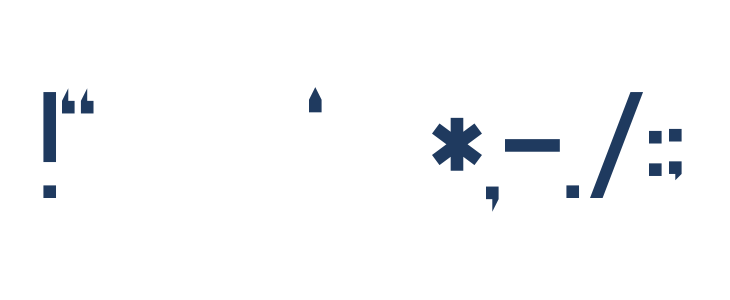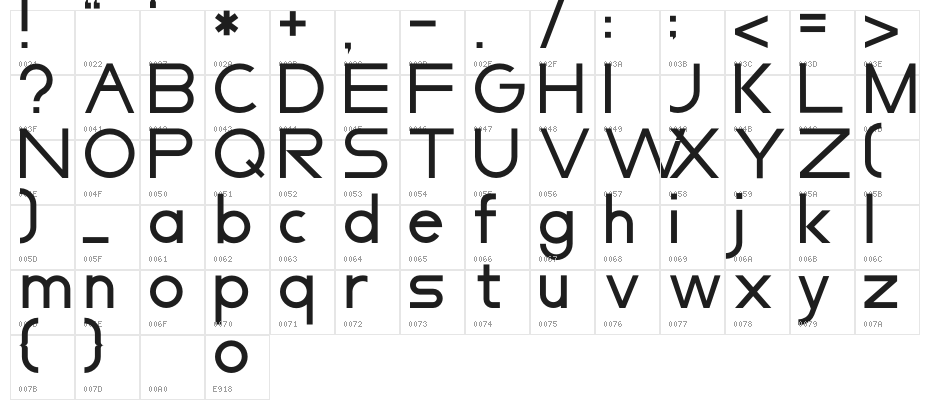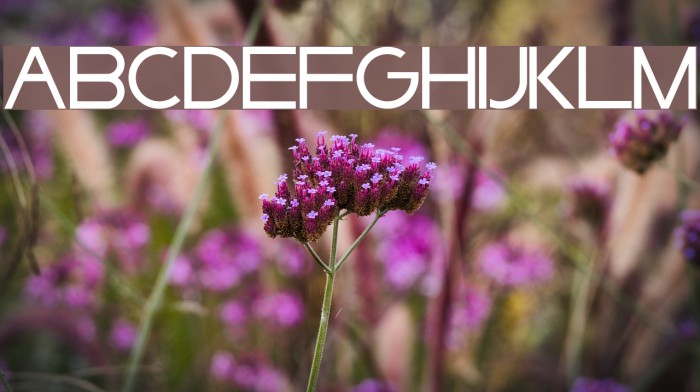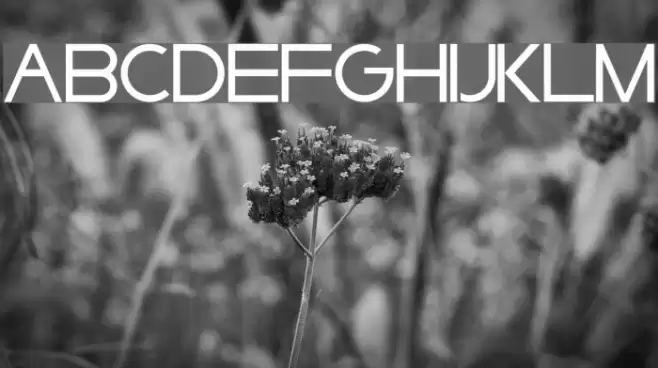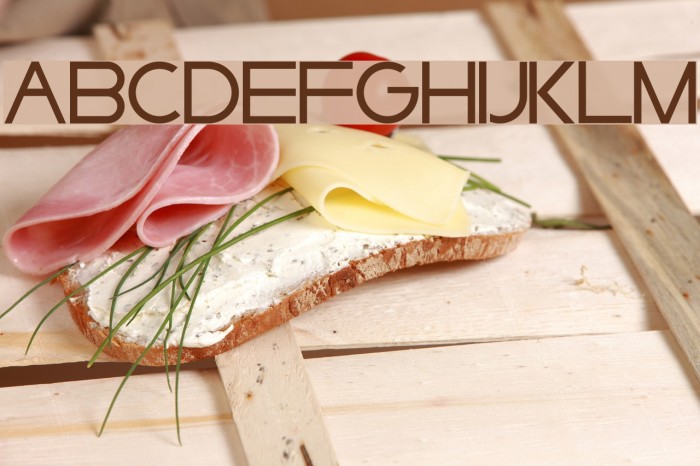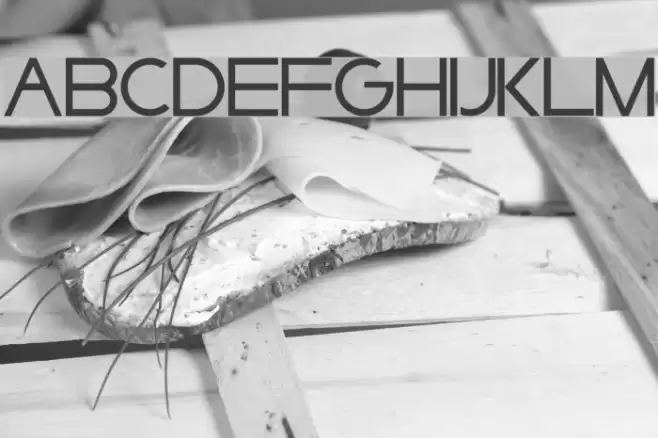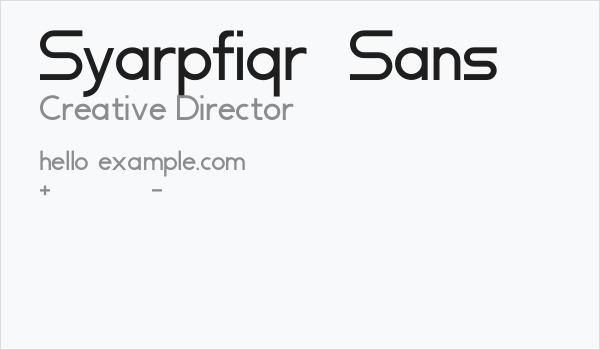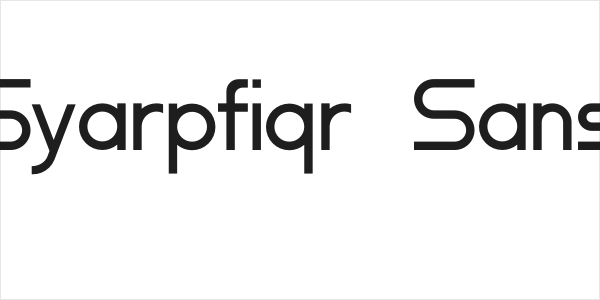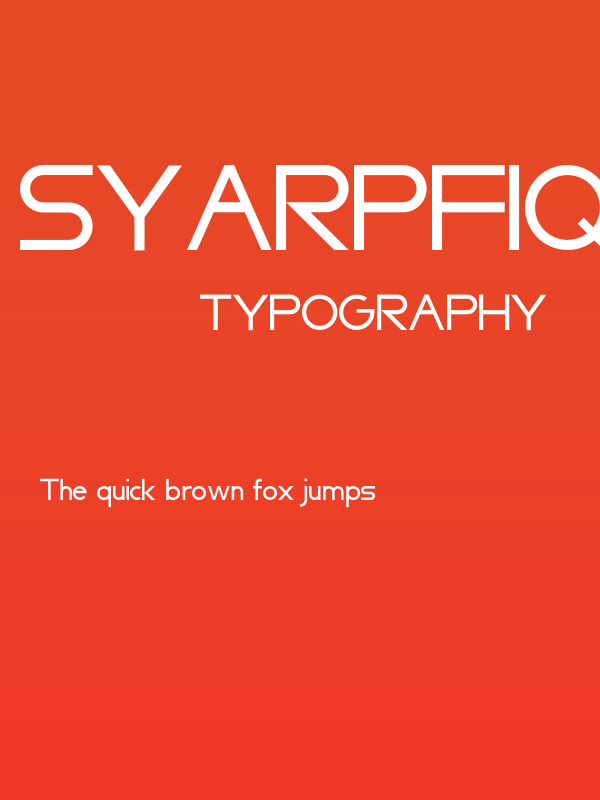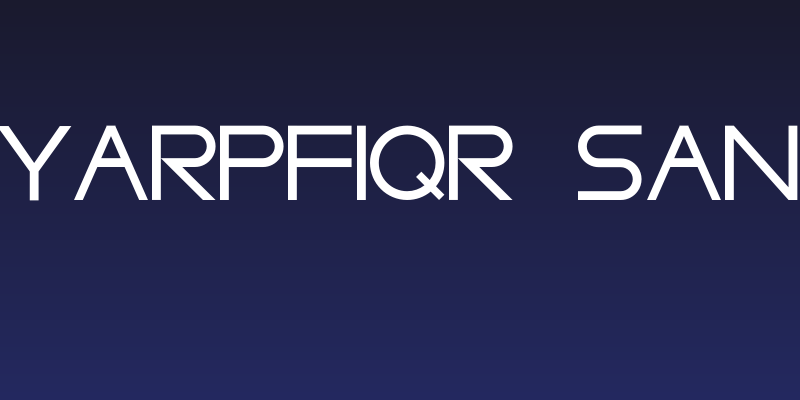
Syarpfiqr Sans Font
Syarpfiqr Sans Description
This font features a clean and modern sans-serif design with a geometric structure. The uppercase letters are characterized by their sharp, angular lines and uniform stroke width, giving them a contemporary and minimalist appearance. The lowercase letters maintain a similar geometric style, with rounded edges that add a touch of softness to the overall design. The numerals are consistent with the letterforms, ensuring readability and balance. Special characters are designed with the same attention to detail, making them suitable for a variety of applications. The font's simplicity and clarity make it ideal for digital and print media.